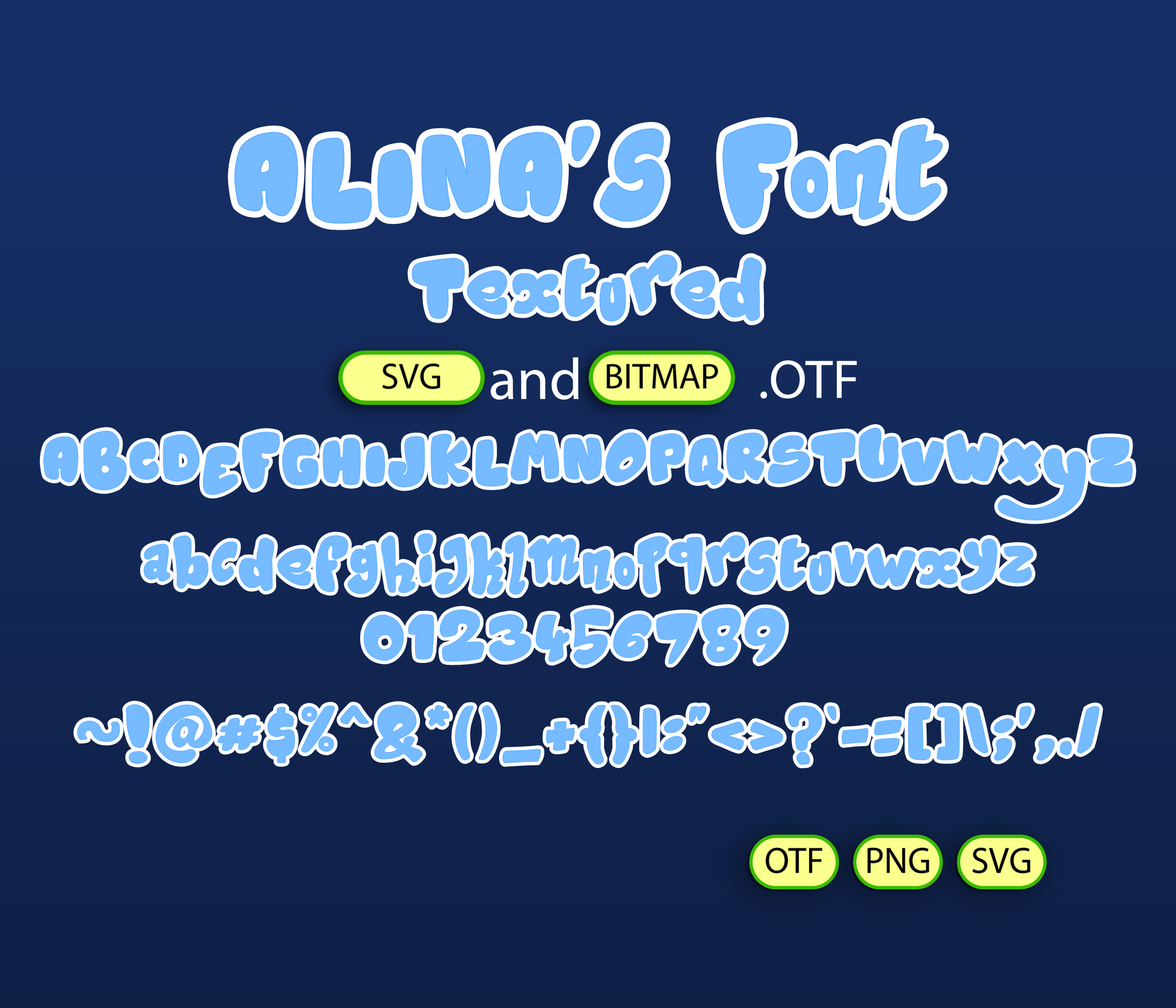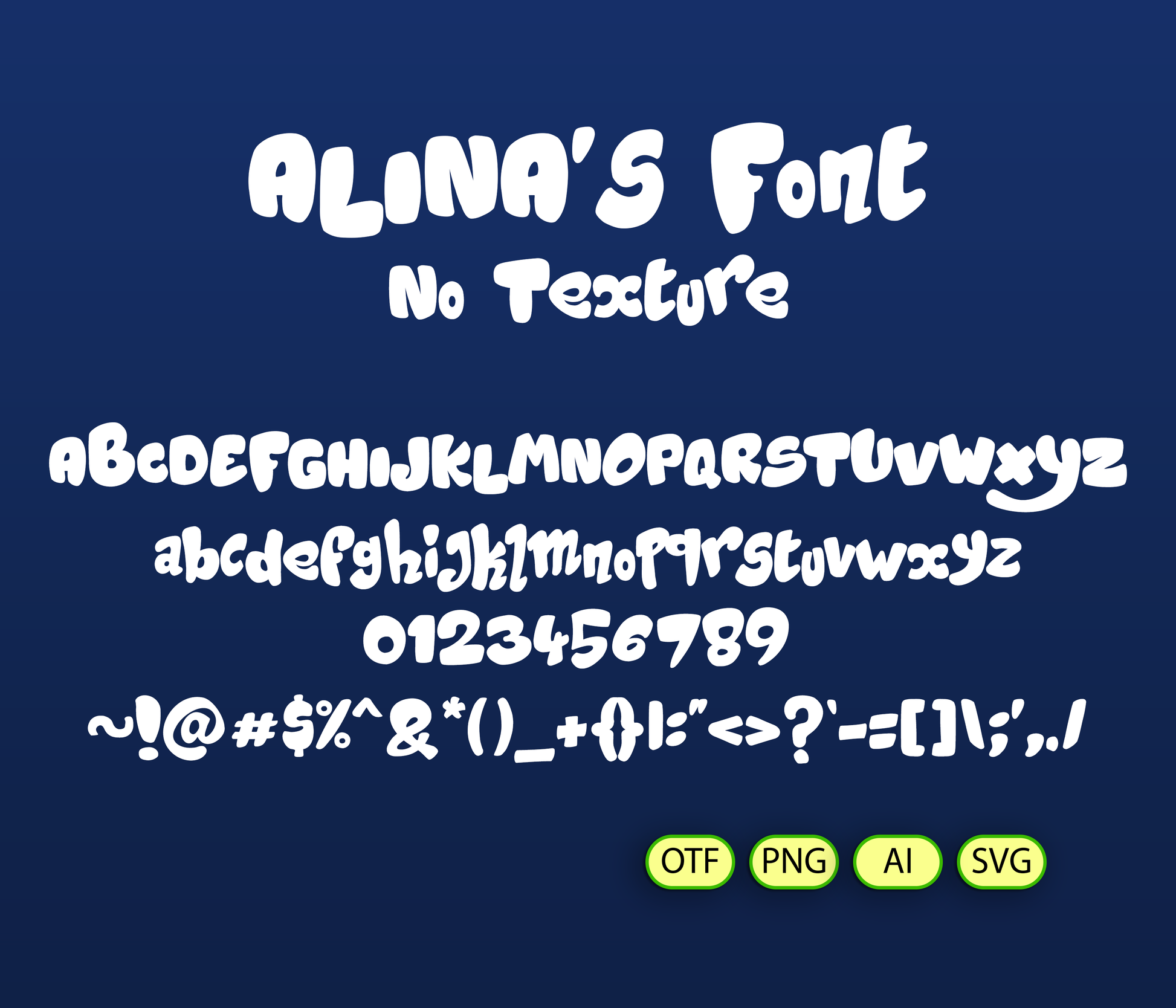
Puppy Playtime Font Textured
Dive into the colorful world of animated canine adventures with our specially crafted font. This typeface captures the essence of a beloved Australian cartoon series, known for its heartwarming family stories and playful pups. Perfect for children's party planners, educators, and fans of wholesome entertainment, this font brings the joyful, energetic spirit of the Blue Heeler family to your creative projects.
What font is the Puppy Playtime font?
Envision a typeface that embodies the fun and friendly nature of the cartoon's main character - bouncy, rounded, and bursting with energy. Our font features playful, curvy letterforms that mirror the lively antics of the animated dogs, complete with subtle nods to Australian elements. It includes a comprehensive character set with alphabets, numbers, and special symbols, providing a versatile solution for various design needs.
What You Can Do With Puppy Playtime Textured Font
This versatile font is ideal for a range of creative applications:
1. Birthday Party Invitations: Create cheerful invites for children's celebrations
2. Educational Materials: Design engaging worksheets and learning resources for young students
3. Digital Content: Enhance blogs and social media posts about parenting and family activities
4. Merchandise Design: Perfect for creating t-shirts, backpacks, and toys for young fans
5. Event Decorations: Develop banners, posters, and signage for family-friendly events
6. Children's Book Titles: Use for eye-catching book covers and chapter headings
7. Animated Video Graphics: Incorporate into title sequences or lower thirds for kids' content
8. Playroom Decor: Design wall art and custom decorations for children's spaces
• Textured and Non-Textured Variants: Available in both a fun, slightly worn style reminiscent of children's crayon drawings, and a clean version for versatile use
• Extensive Character Set: Offers a wide range of characters for complete design flexibility